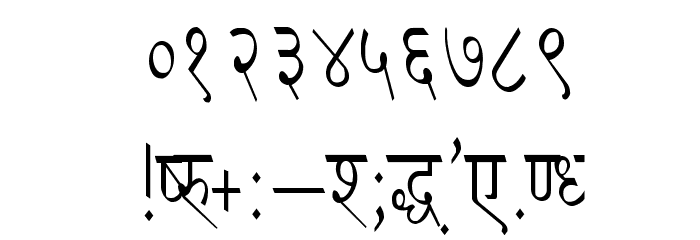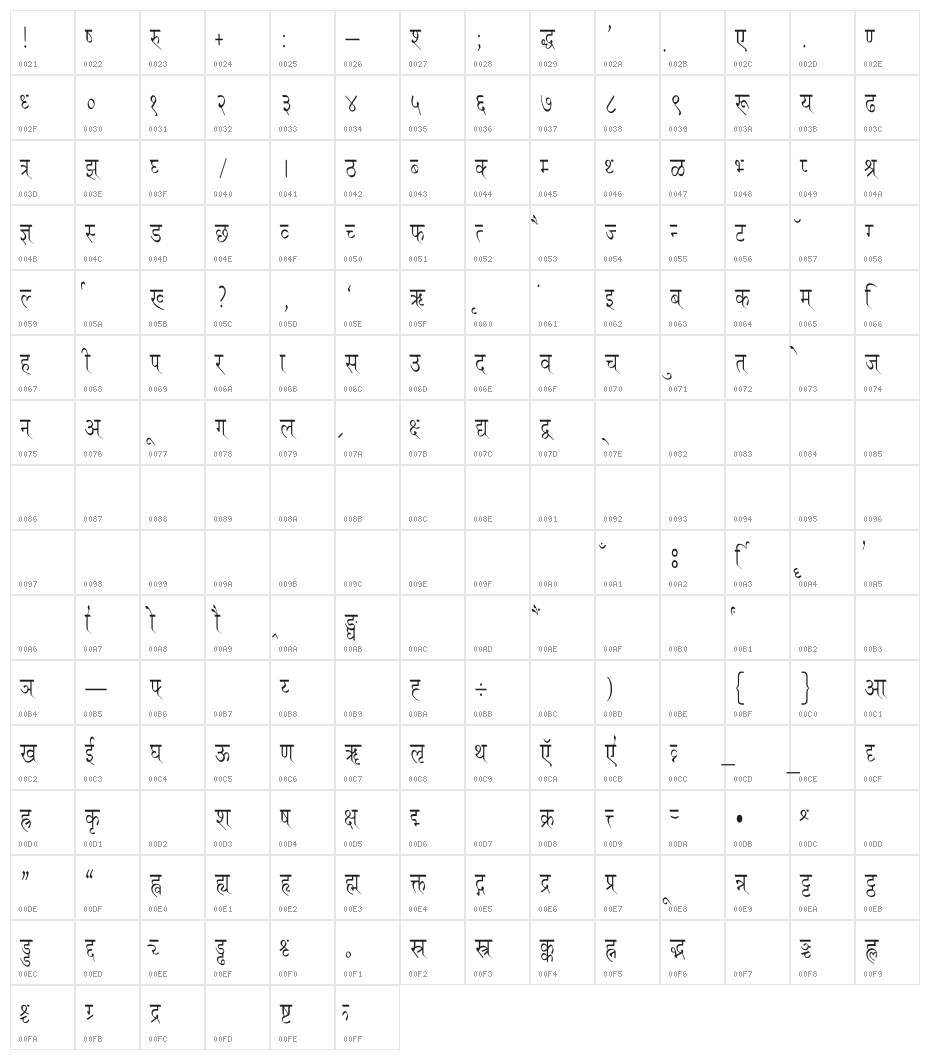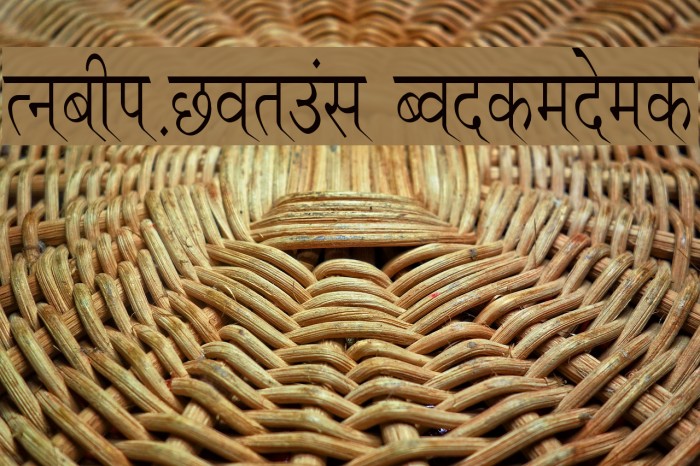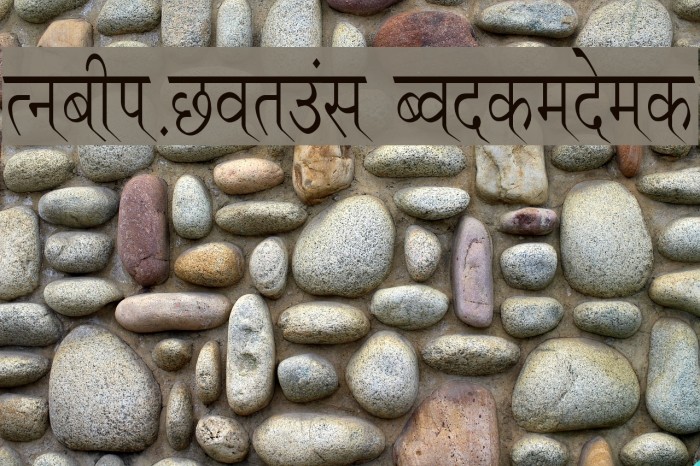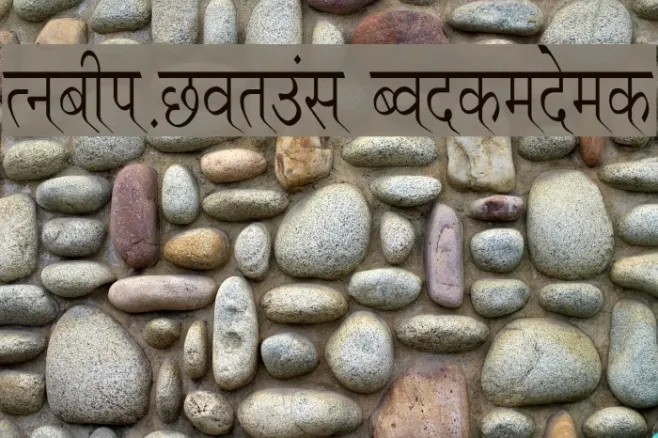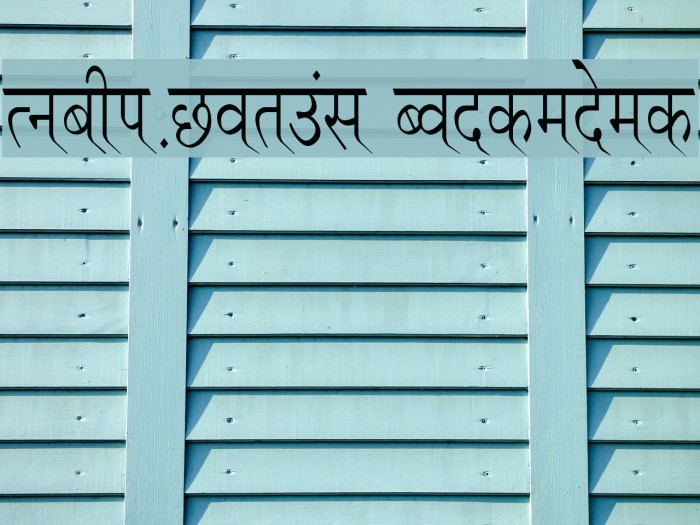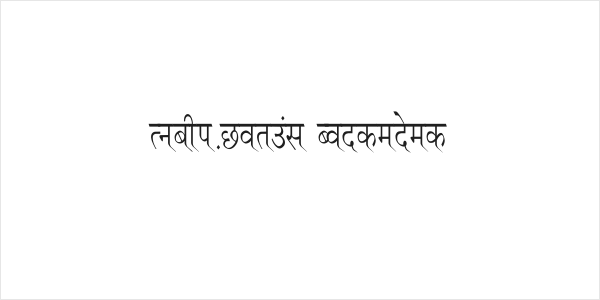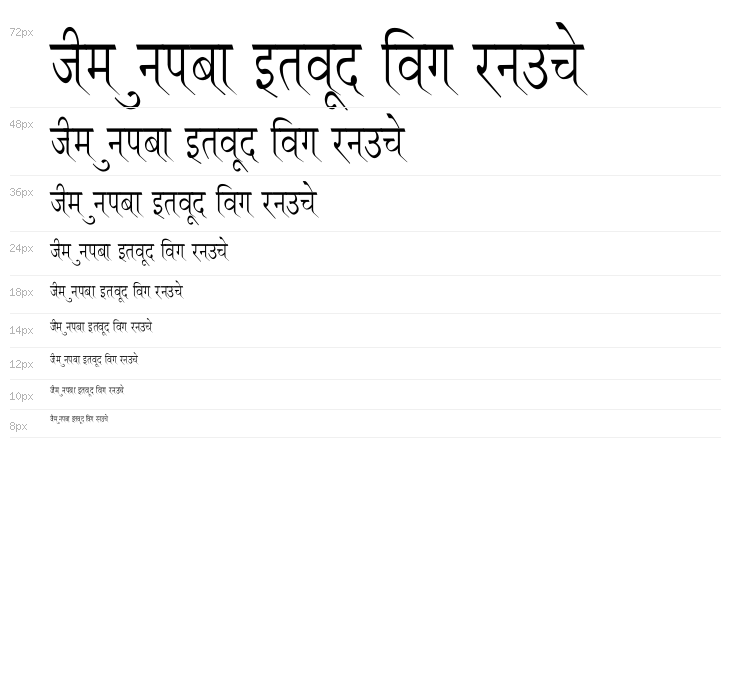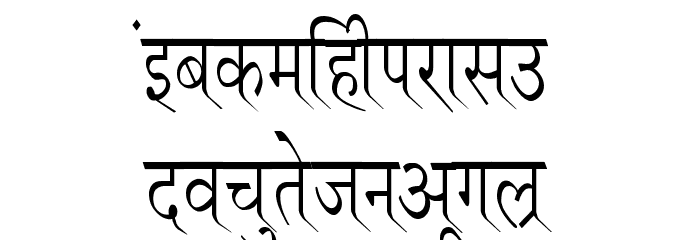
Ruchi-Normal Condensed Font
Ruchi-Normal Condensed Description
This font features a distinctive Devanagari script style, characterized by its elegant and flowing lines. The characters are designed with a condensed width, allowing for efficient use of space while maintaining readability. The strokes are moderately thick, providing a balanced contrast that enhances the clarity of each letter. The font exhibits a traditional aesthetic with a modern touch, making it suitable for both formal and informal contexts. The numerals and special characters are harmoniously integrated, ensuring consistency across different types of content.
| Overall Style | Traditional with a modern touch |
| Use Case | Headlines, Cultural publications, Educational materials |
| Proposed Projects | Ideal for projects involving Indian languages, cultural publications, educational materials, and artistic designs. |